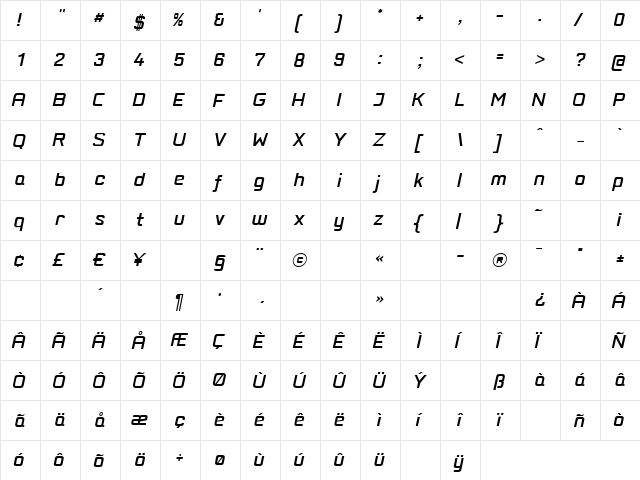
PositecItalic Regular
Design Context for PositecItalic Typeface
PositecItalic offers clean, dependable letterforms without strong stylistic allegiance, making it a practical choice for designers who need flexibility. The slanted form adds forward momentum and visual energy.